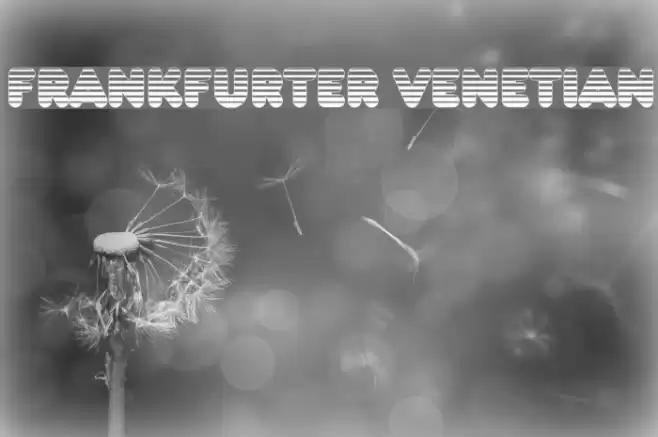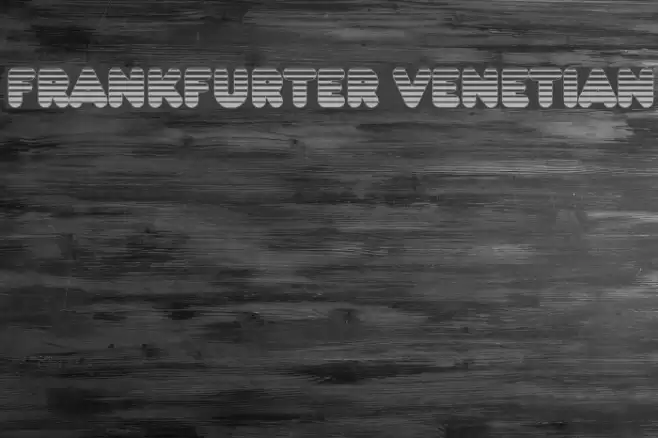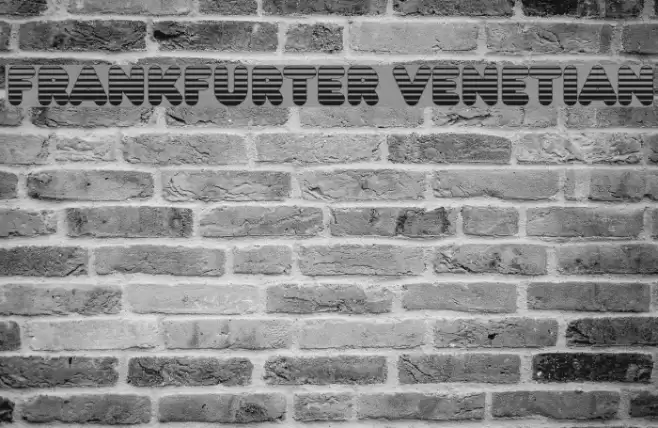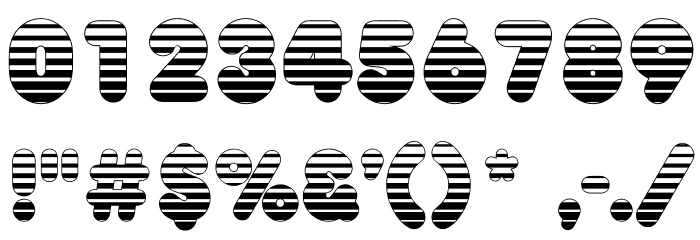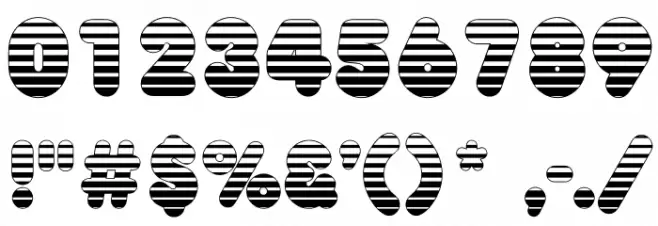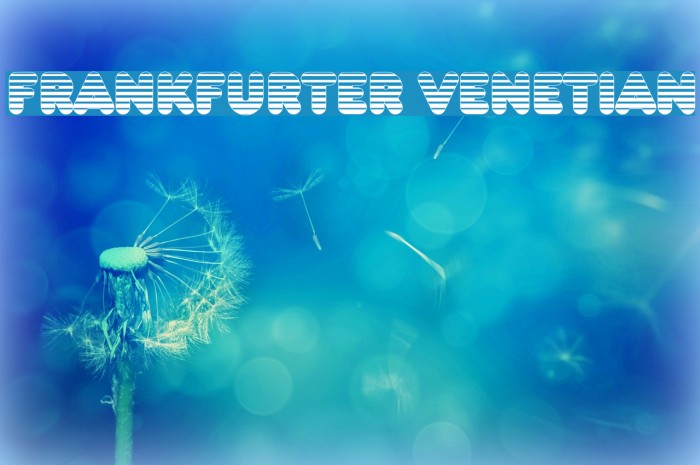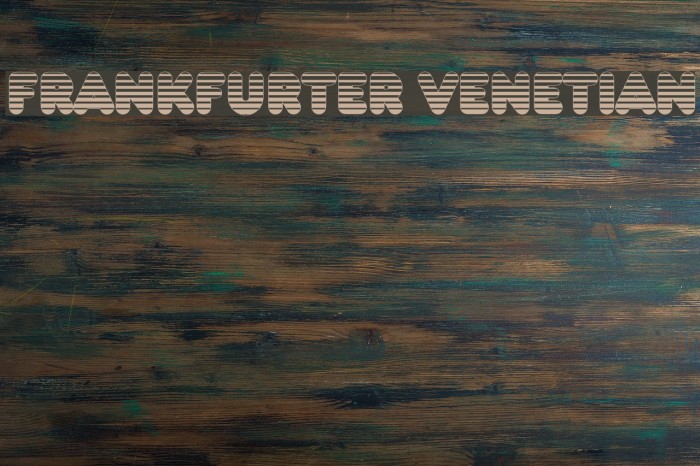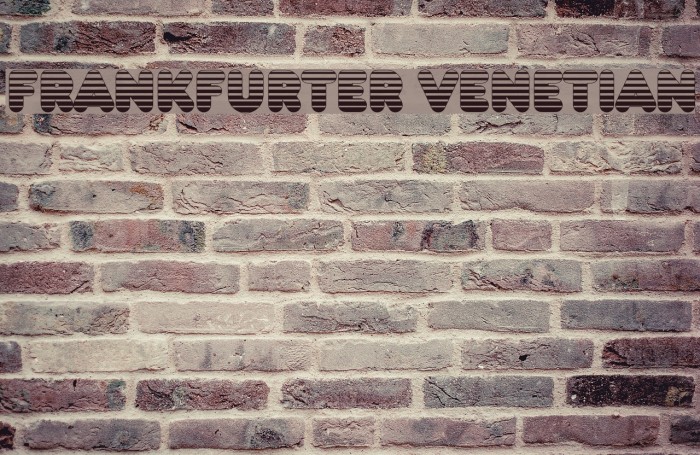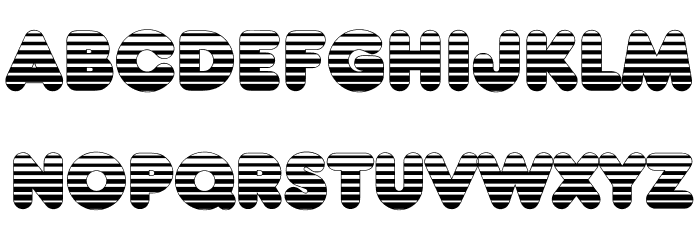
Frankfurter Venetian Font
Frankfurter Venetian Description
This font features a bold, playful design with a unique striped pattern running horizontally across each character. The letters are rounded and have a three-dimensional appearance, giving them a sense of depth and movement. The consistent stripe pattern adds a dynamic visual element, making the font stand out. It is well-suited for creative and eye-catching designs, offering a modern twist on traditional letterforms. The characters are evenly spaced, ensuring readability while maintaining a distinct style that is both fun and engaging.
A bold, playful font with a unique horizontal stripe pattern and rounded, three-dimensional characters from Uncategorized fonts.
- Proposed Projects: Ideal for branding, posters, children's books, and any project needing a fun, eye-catching typeface.